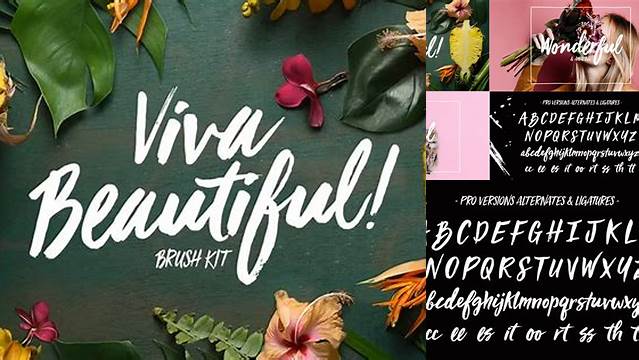
Viva Beautiful Font: Free Download & Usage Guide
Are you looking to add a touch of elegance and sophistication to your design projects? Look no further than Viva Beautiful, a stunning free font that's capturing the hearts of designers and creatives worldwide. In this comprehensive guide, we'll dive deep into everything you need to know about Viva Beautiful, from its unique characteristics and design applications to how to download and use it effectively. So, buckle up, design enthusiasts, and let's explore the world of Viva Beautiful!
What Makes Viva Beautiful Font So Special?
Viva Beautiful isn't just another font; it's a meticulously crafted typeface that exudes charm and personality. Its elegant curves, delicate strokes, and balanced letterforms make it a versatile choice for a wide range of design projects. But what exactly sets Viva Beautiful apart from the crowd?
- A Touch of Elegance: The font's graceful lines and refined details lend an air of sophistication to any design, making it perfect for projects that require a touch of class.
- Versatility is Key: Whether you're designing a wedding invitation, a logo, or a website header, Viva Beautiful adapts seamlessly to various design styles and applications. Its versatility makes it a valuable asset in any designer's toolkit.
- Readability Matters: Despite its elegant flourishes, Viva Beautiful maintains excellent readability, ensuring that your message is conveyed clearly and effectively. This balance between aesthetics and functionality is a hallmark of great typography.
- Unique Charm: The font possesses a distinct personality that sets it apart from generic typefaces. Its unique character adds a touch of individuality to your designs, helping them stand out from the crowd.
Delving Deeper into the Design of Viva Beautiful
To truly appreciate the beauty of Viva Beautiful, it's essential to understand the nuances of its design. Let's take a closer look at some of the key characteristics that define this exquisite typeface:
- The Curves: The flowing curves in Viva Beautiful create a sense of movement and grace, adding a touch of artistry to the text. These curves are carefully crafted to ensure visual harmony and balance.
- The Strokes: The delicate strokes in Viva Beautiful contribute to its overall elegance and refinement. The varying stroke weights add visual interest and prevent the font from appearing too monotonous.
- The Letterforms: The letterforms in Viva Beautiful are meticulously designed to ensure clarity and legibility. Each letter is carefully crafted to complement the others, creating a cohesive and visually appealing typeface.
- The Spacing: The spacing between letters and words in Viva Beautiful is carefully considered to enhance readability and visual appeal. Proper spacing is crucial for creating a harmonious and balanced typographic composition.
- The Serifs (or Lack Thereof): While some variations of Viva Beautiful may include subtle serifs, the font generally leans towards a sans-serif style, giving it a modern and clean aesthetic. This characteristic makes it suitable for a wide range of design applications.